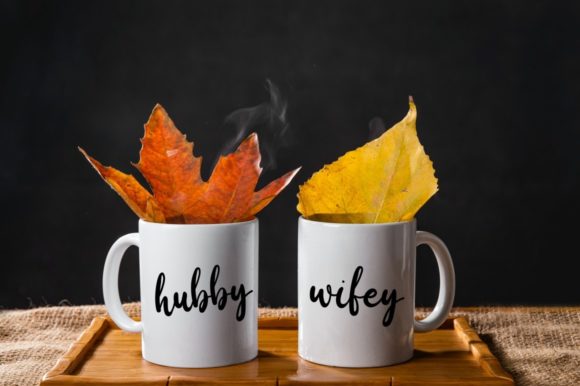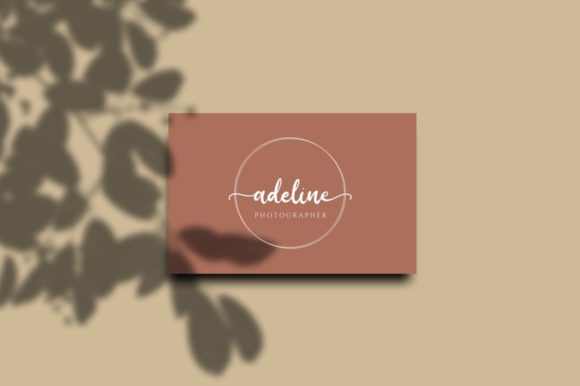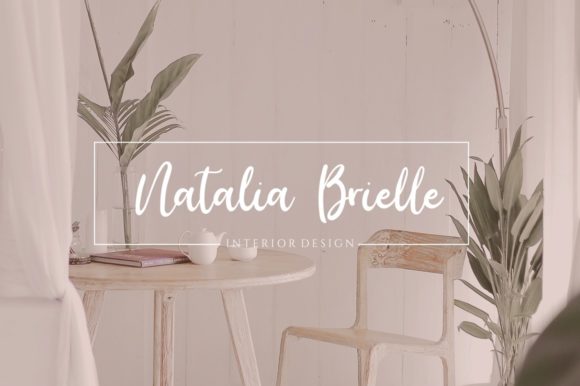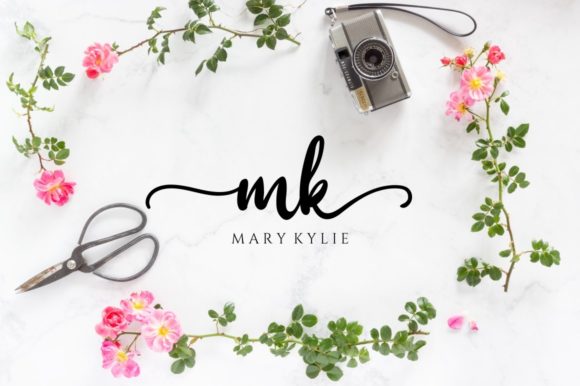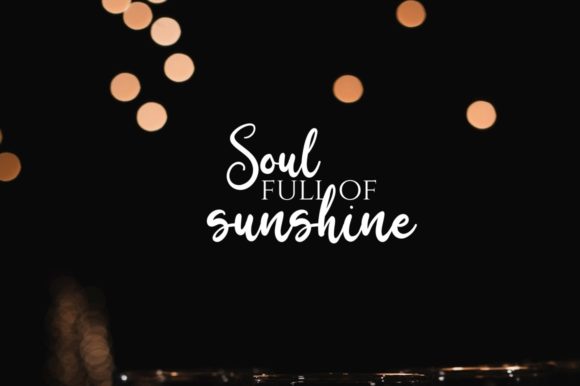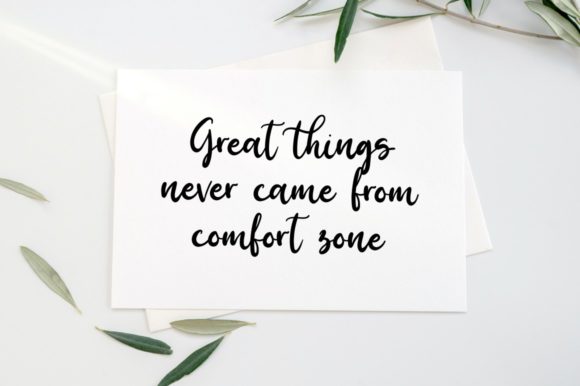
Falling in Love with the Birdy Home Font
As designers, we’ve all been there – staring at a blank canvas, trying to find the perfect combination of words and visuals to convey our message. And then, it happens – a spark of inspiration strikes, and we’re off and running. For me, it was a late-night coffee session, pouring over font samples, when I stumbled upon the enchanting Birdy Home Font. Its whimsical, romantic charm immediately caught my attention, and I knew I had to share it with the world.
The Birdy Home Font is a beautiful calligraphy typeface, designed to make your designs truly special. With its PUA-encoded characters and amazing glyphs, you’ll be able to create stunning works of art that are sure to captivate your audience. Whether you’re a seasoned pro or just starting out, this versatile font is a valuable addition to any designer’s toolkit.
- Unique Characteristics: Features a modern, elegant design with subtle rounded edges, making it suitable for various design applications, including branding, advertising, and packaging
Overall, I think the Birdy Home Font is a cute and charming script font. ✨ It’s perfect for designers looking for a playful, handwritten feel for their projects. The font is highly legible, making it suitable for body text as well as headings.
- ✨ Highly legible, even at smaller font sizes
- ✨ Charming and playful feel, perfect for creative projects
- ✨ Suitable for a wide range of applications, from body text to headings
- ✨ Well-suited for designers looking for a unique, handwritten feel
- ⚠️ Limited support for languages other than English and Spanish
- ⚠️ May not be suitable for formal or professional projects
- ⚠️ Some characters may not be as detailed or refined as other fonts
Overall, I think the Birdy Home Font is a solid choice for designers looking for a playful, handwritten feel. While it may have some limitations, it’s well-suited for a wide range of applications and is highly legible. I’d recommend it for personal projects or creative endeavors, but may not be the best choice for formal or professional projects.
Tips for Getting the Most Out of the Birdy Home Font
To get the most out of the Birdy Home Font, consider the following tips:
- Use the font in conjunction with other playful and whimsical elements to create a cohesive look.
- Pair the font with high-quality images or graphics to create a polished look.
The Birdy Home Font is ideal for:
- Children’s book illustrations and designs.
Comparison to Birdy Home Font: While Birdy Home Font has a more rounded and friendly feel, Lato is more angular and professional. Lato is also more extensive in its font family, offering a wider range of weights and styles.